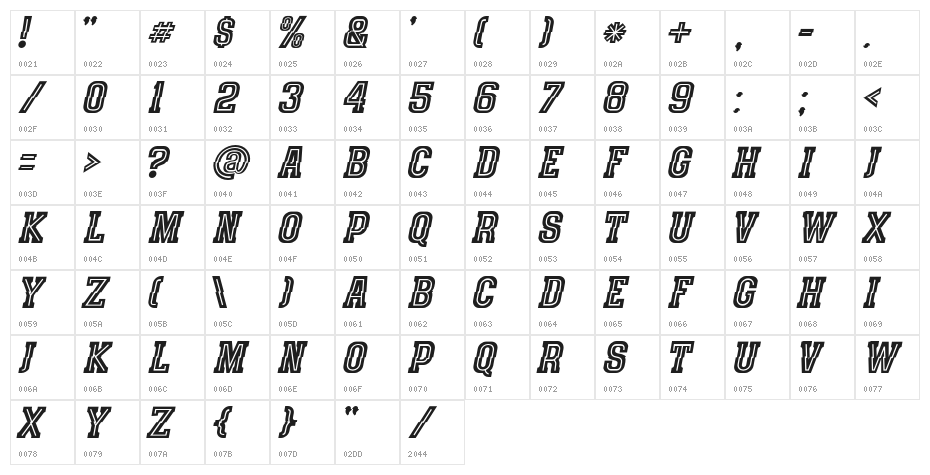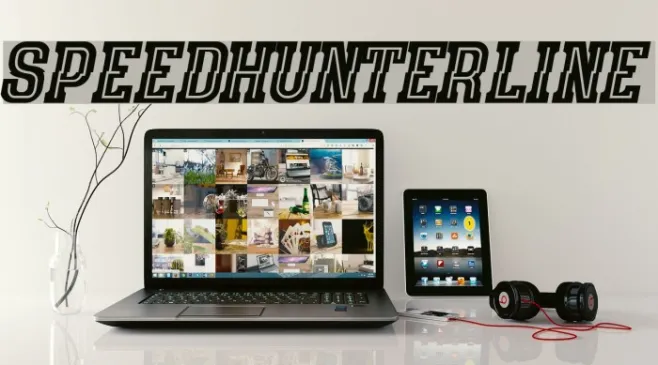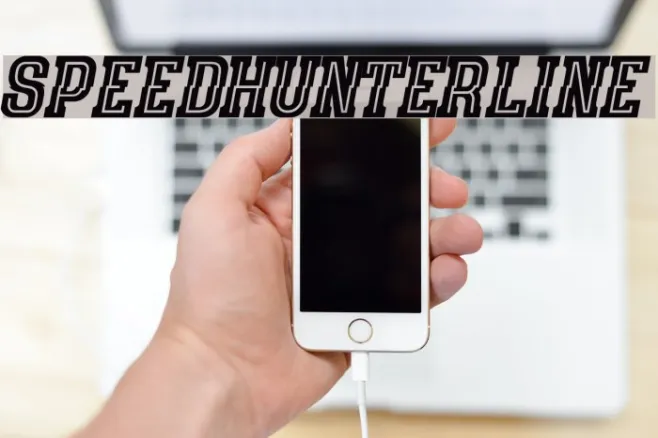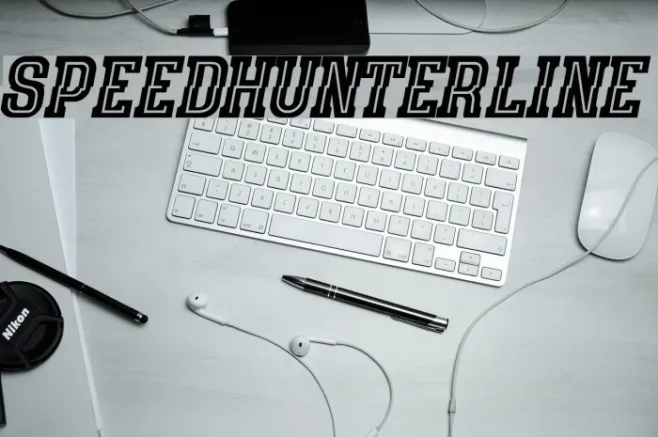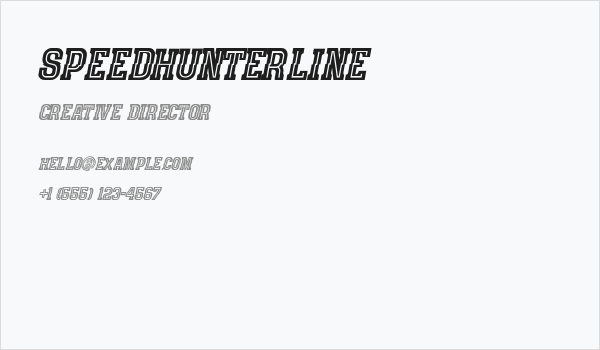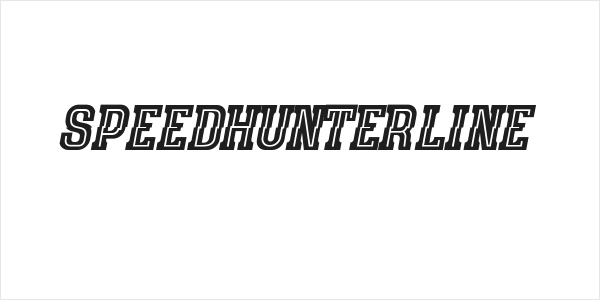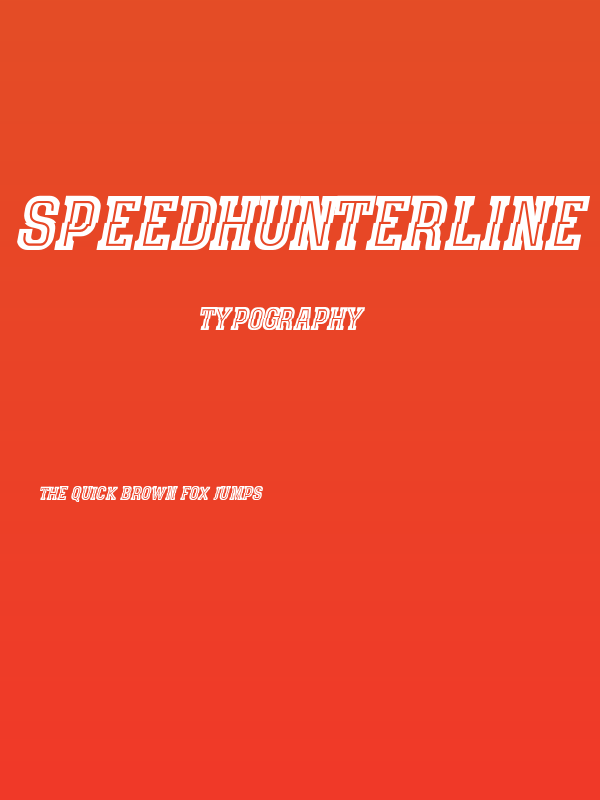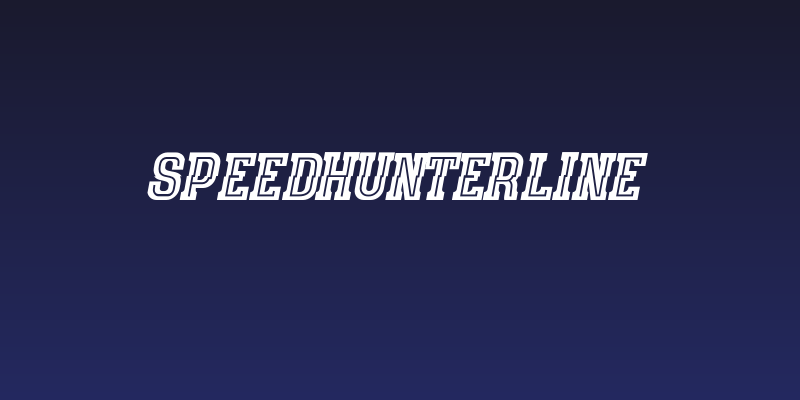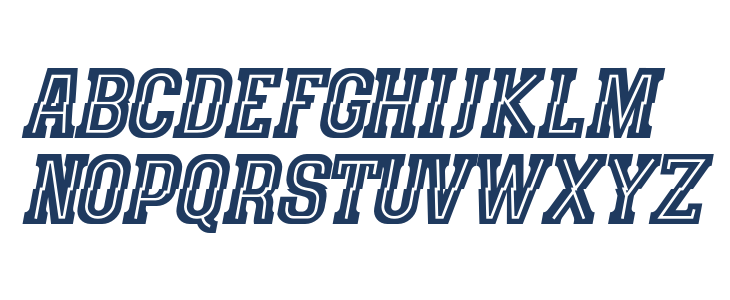
speedhunterline Font
speedhunterline Description
This font features a bold, dynamic style with a strong presence, characterized by its thick, double-lined strokes that create a sense of movement and energy. The uppercase letters are designed with a slight slant, adding to the impression of speed and forward momentum. The numerals and special characters maintain this energetic aesthetic, ensuring consistency across all characters. The font's boldness and unique outline make it highly suitable for attention-grabbing designs, where impact and readability are crucial.
| Proposed Projects | Ideal for sports branding, automotive designs, posters, and dynamic headlines. |